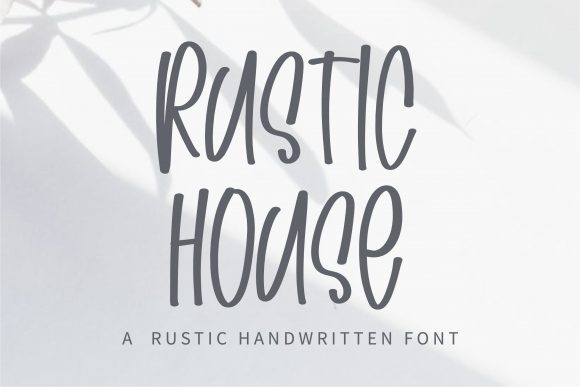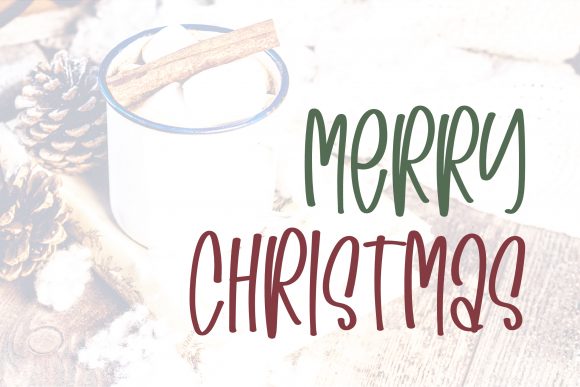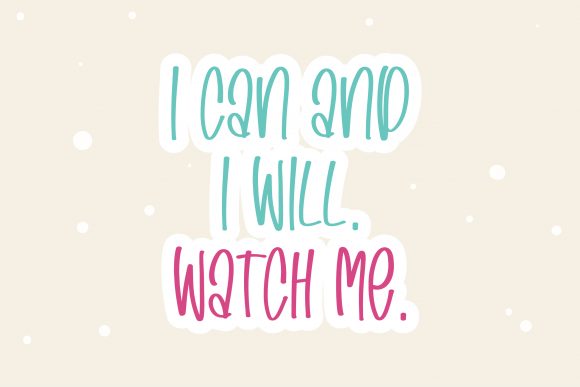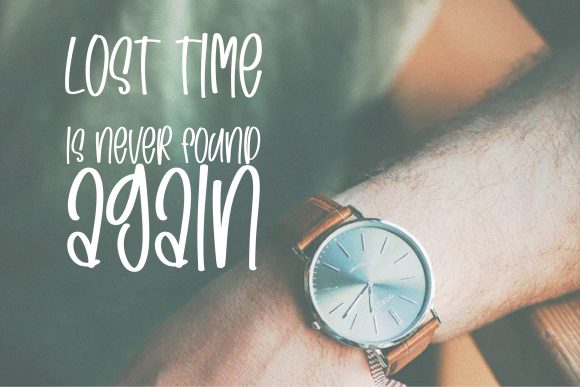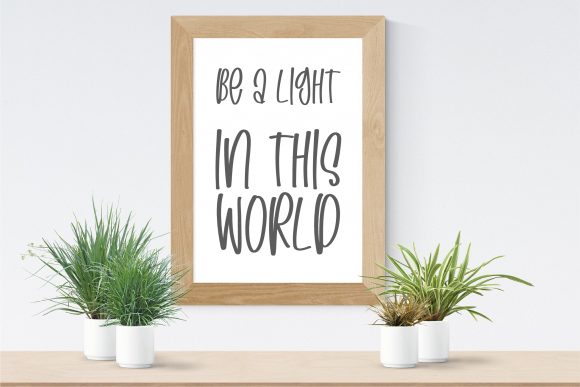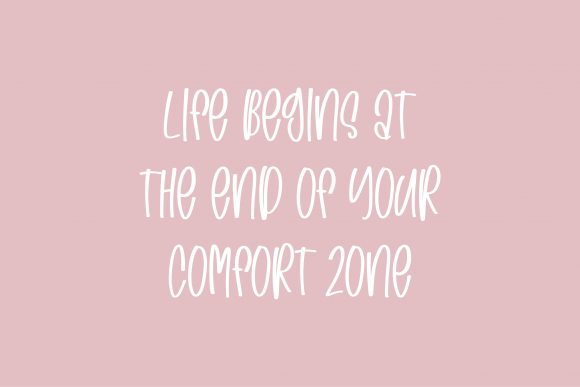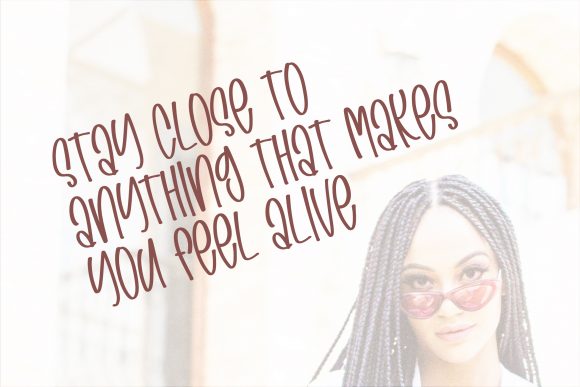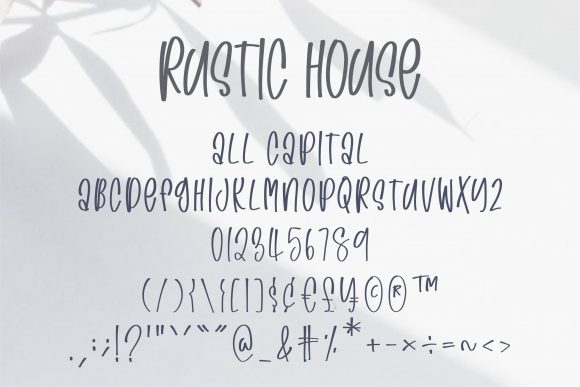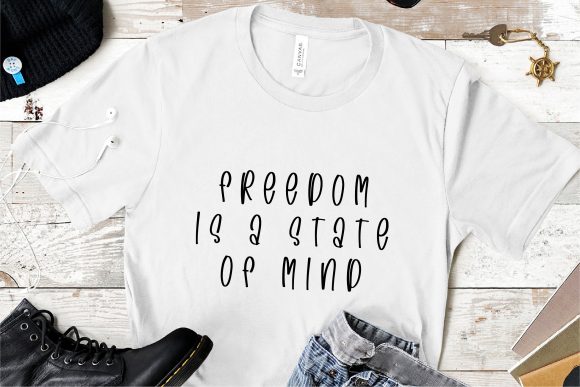
Rustic House Font
About Rustic House Font
Rustic House is a sweet and relaxed handwritten font. Fall in love with its incredibly versatile style and use it to create gorgeous invitations, beautiful stationary art, eye-catching social media posts, and much more!